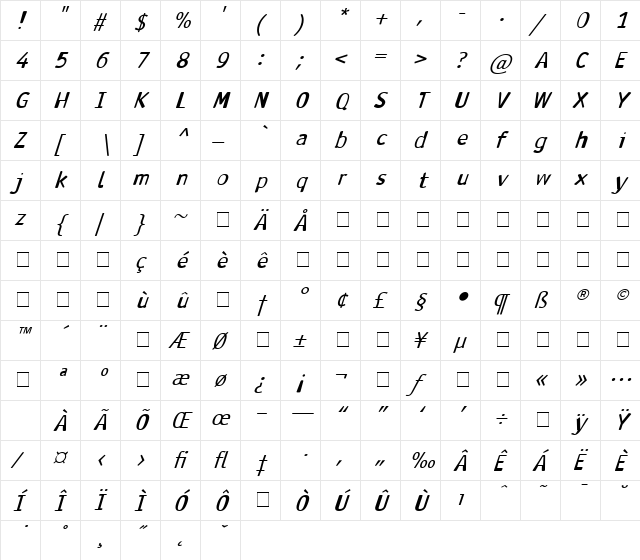
Antaviana Bold Italic Font Preview
Design Context for Antaviana Typeface
Antaviana offers clean, dependable letterforms without strong stylistic allegiance, making it a practical choice for designers who need flexibility. Its italic angle brings a sense of urgency and motion to the letterforms. The heavy weight commands attention and anchors typographic hierarchies.
Pro Tip: Try Antaviana for annotation and caption copy alongside an upright companion — the contrast in angle creates a dynamic but ordered typographic system.